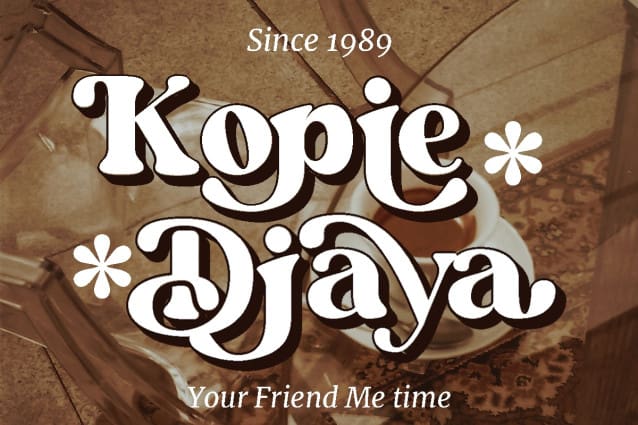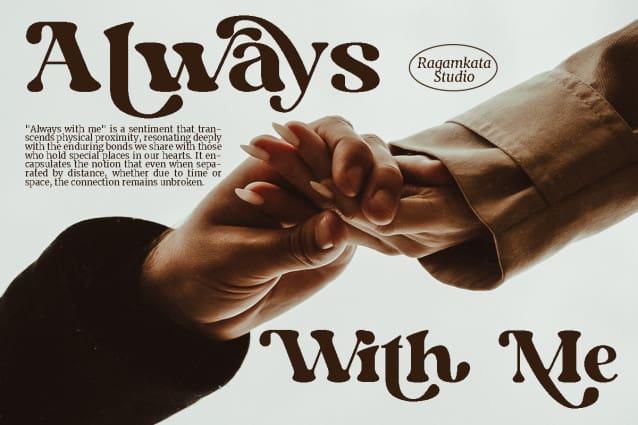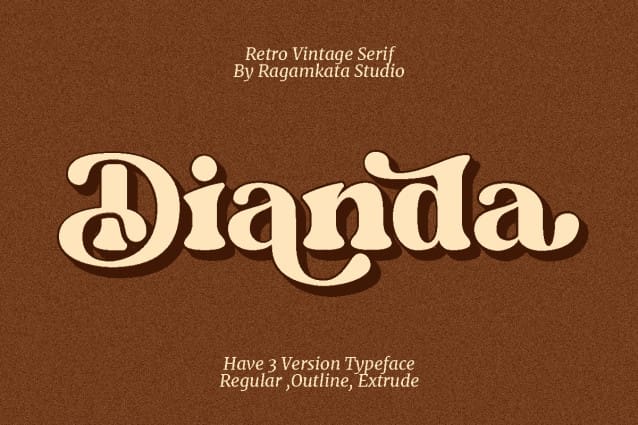
Dianda Retro Font
Dianda Retro Font is a stylish font that is both retro and bold font. Works great for logos, magazine, social media. It come with a unique lower and uppercase plus numbers, punctuation & multilingual letters, alternates and ligatures.